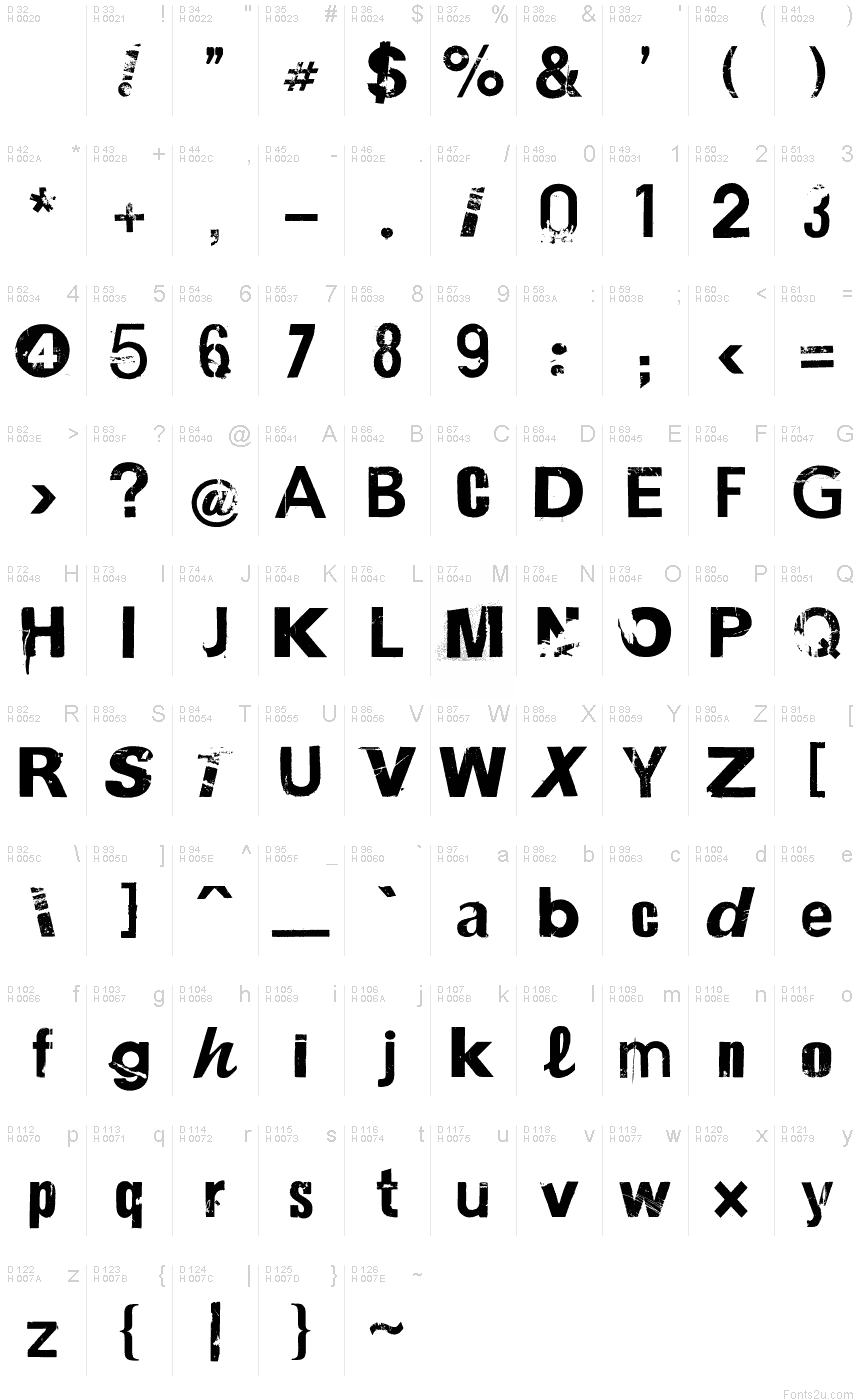
CA Misfit, designed by Stefanie Koerner of {pheist}, is a free eroded display font with the unruly weight of cut-and-pasted lettering. Broad, blunt forms shift abruptly into narrower characters, and several strokes look offset or roughly joined. Scratches, chipped edges, and uneven ink coverage keep the silhouette raw rather than uniformly distressed.
It can turn a title into part typography and part torn poster, a useful role for music packaging and concert promotion. Skate merchandise and independent fashion branding also suit its abrasive, photocopied texture. Its strongest setting is a poster, where shifting widths recall assembled street graphics.